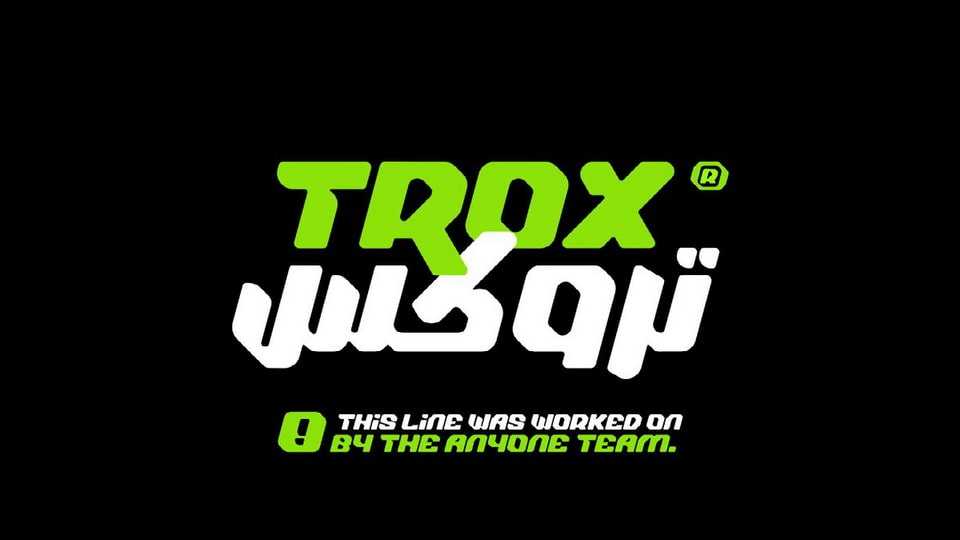
Download Trox font, a display typeface that redefines modern geometric typography by balancing visual harmony with typographic strength. As a variable font, it empowers designers to shape both Arabic and Latin letters in multiple styles.
Designer: Anyone ae®